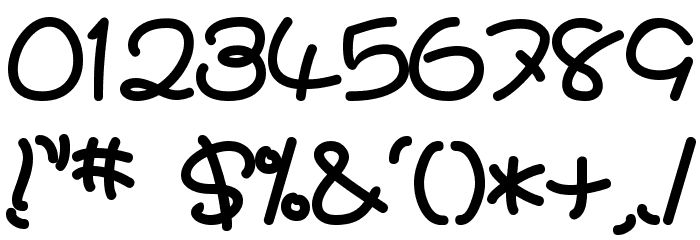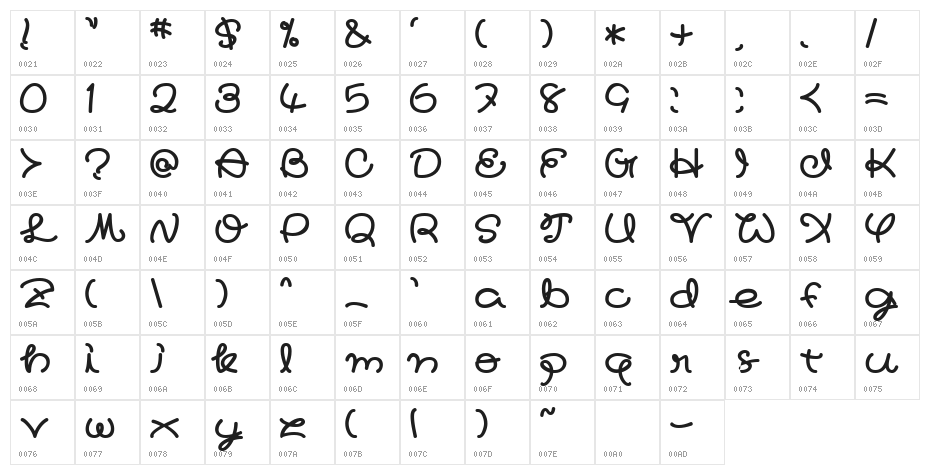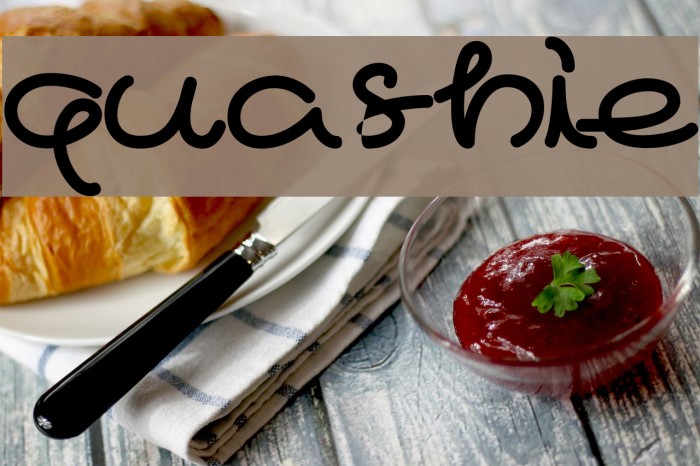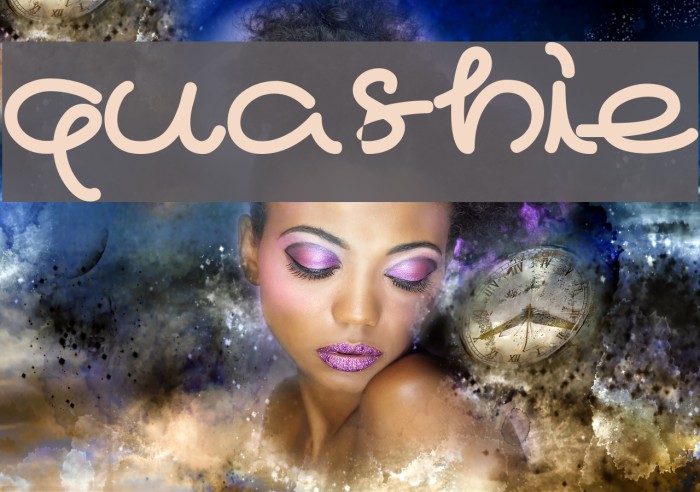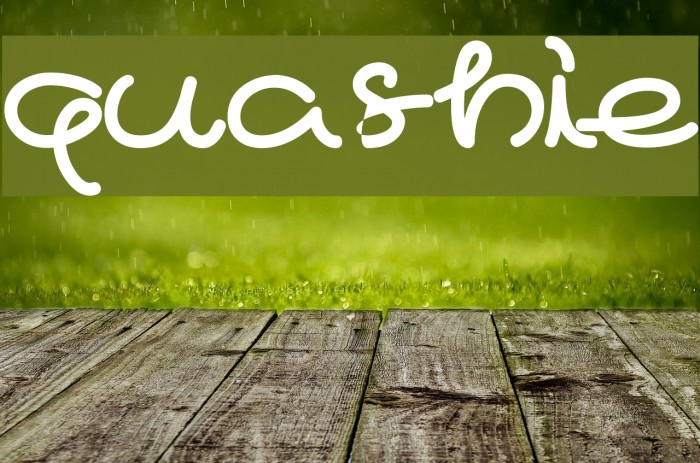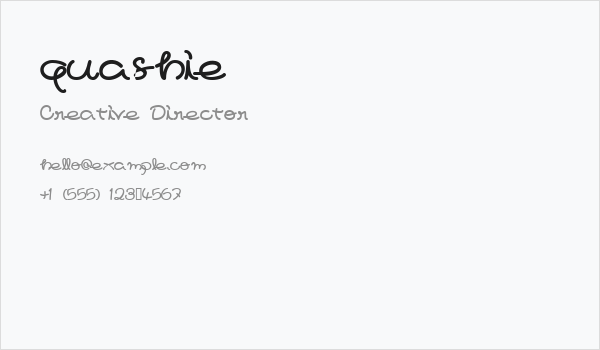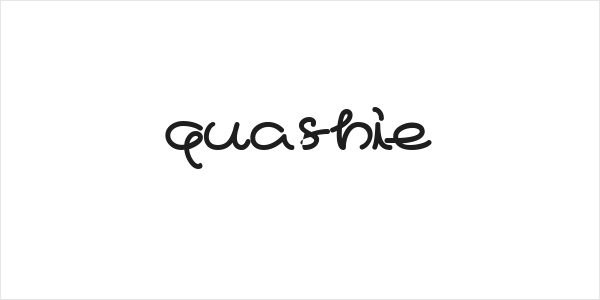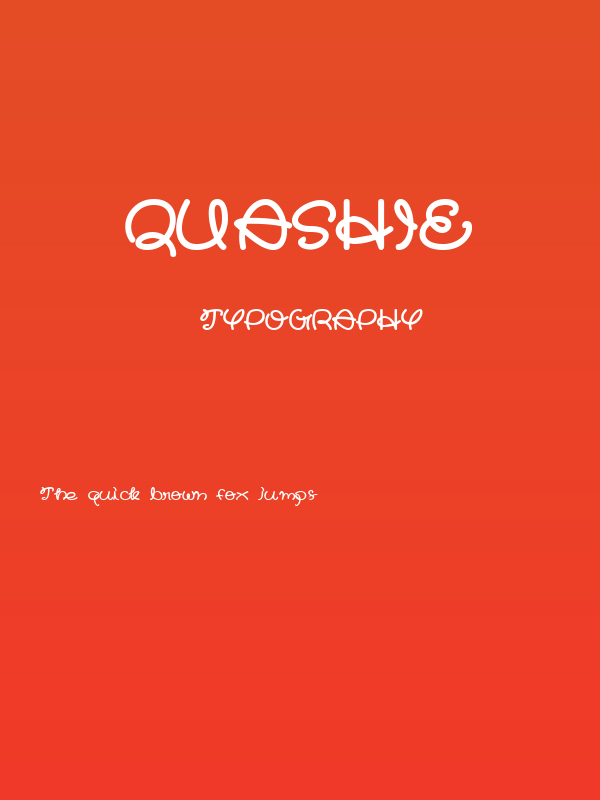
quashie Font
quashie Description
This font features a playful and whimsical script style with a handwritten appearance. The characters are bold and rounded, giving a friendly and approachable feel. The strokes are consistent in thickness, providing a uniform look across all characters. The uppercase letters maintain a consistent height, while the lowercase letters have a slight variation in size, adding to the casual aesthetic. The numbers and special characters follow the same playful design, making them easily recognizable and cohesive with the rest of the font. This style is ideal for projects that require a personal touch or a fun, informal vibe.
| Use Case | Logos, Headlines, Informal Invitations |
| Proposed Projects | Ideal for greeting cards, children's books, playful branding, and social media graphics. |